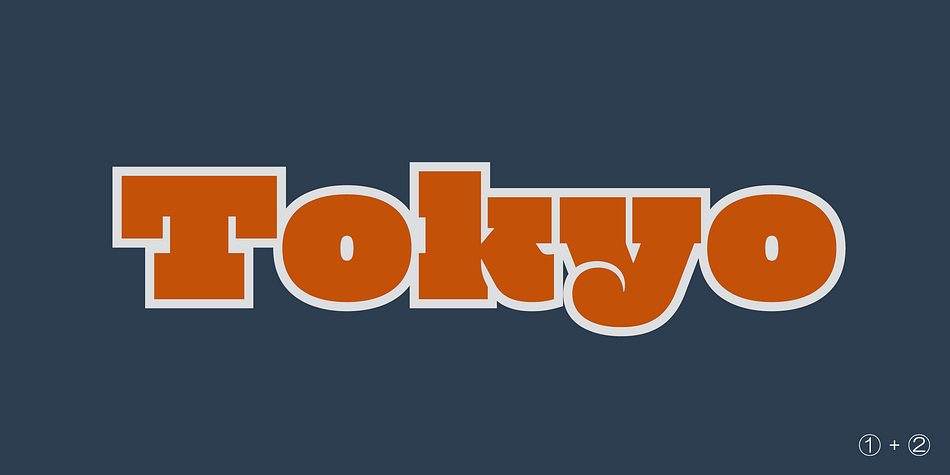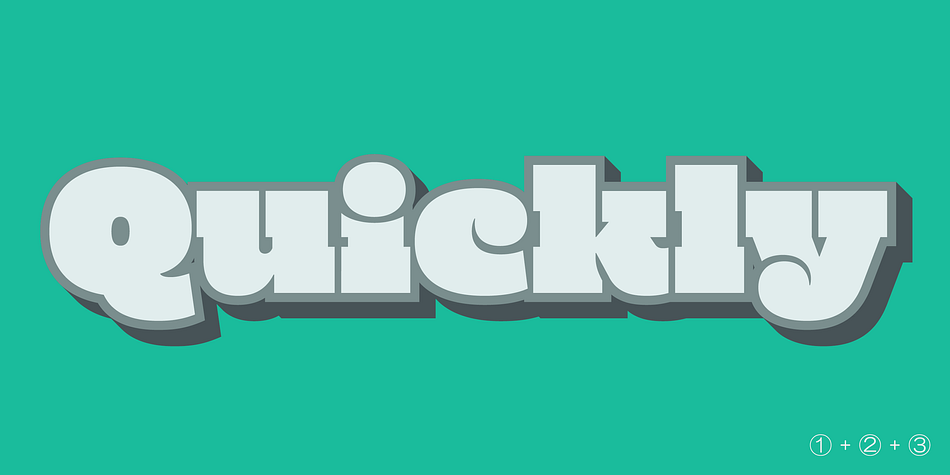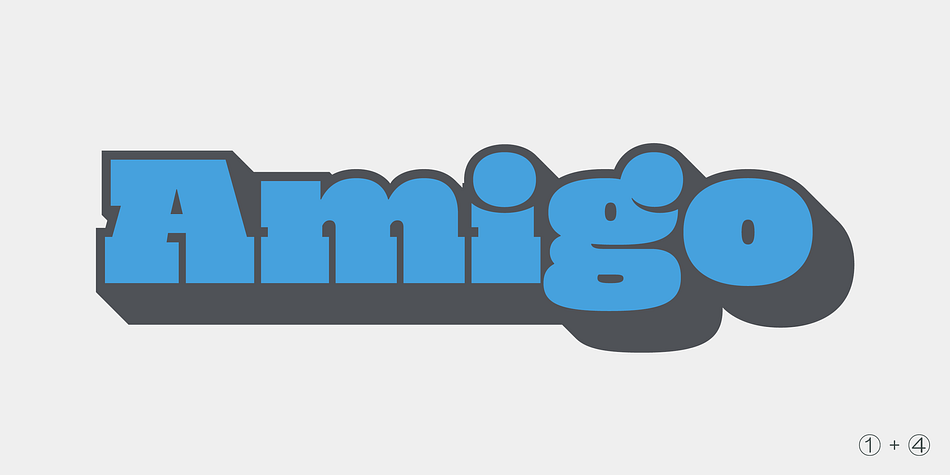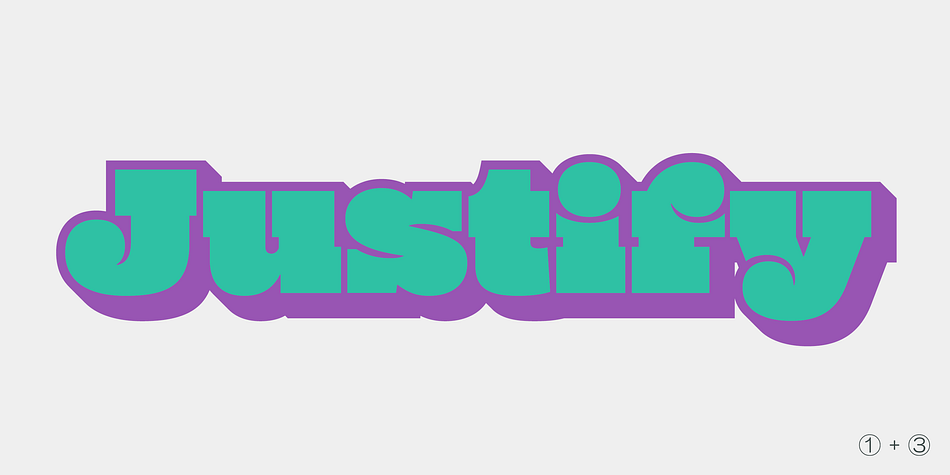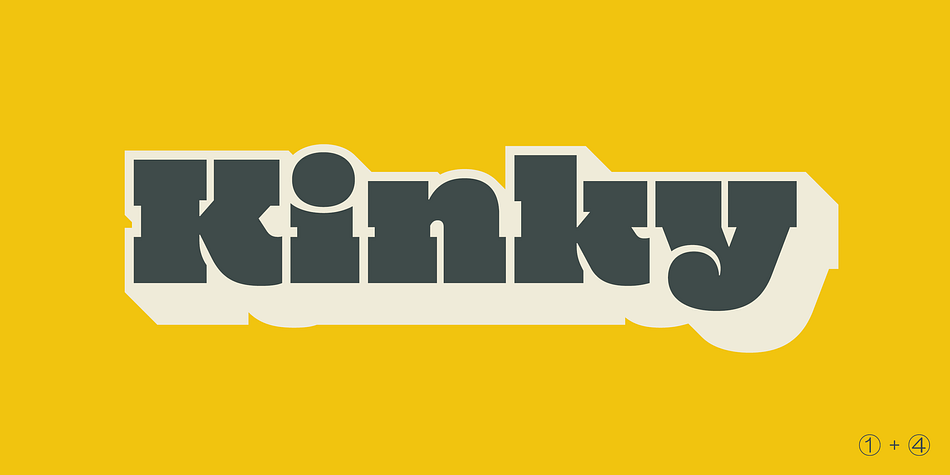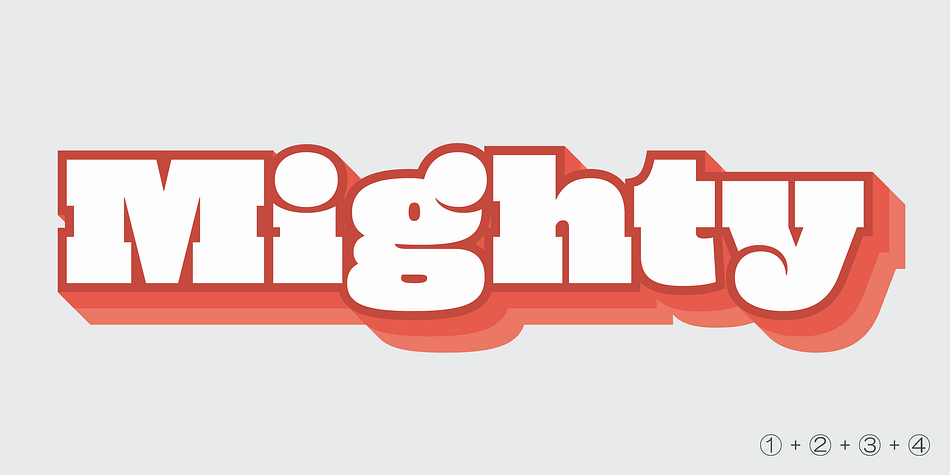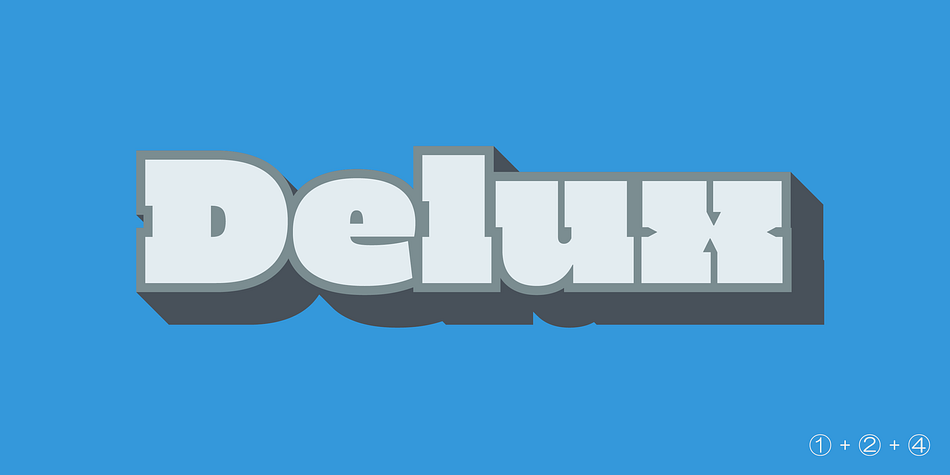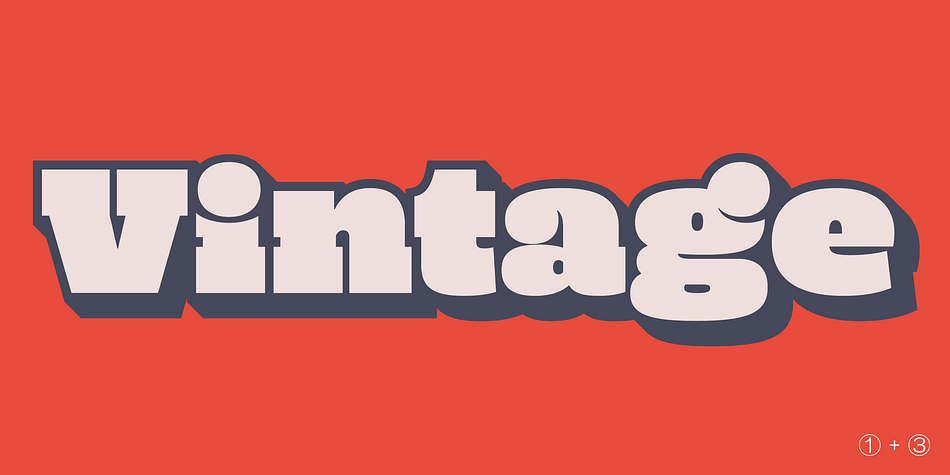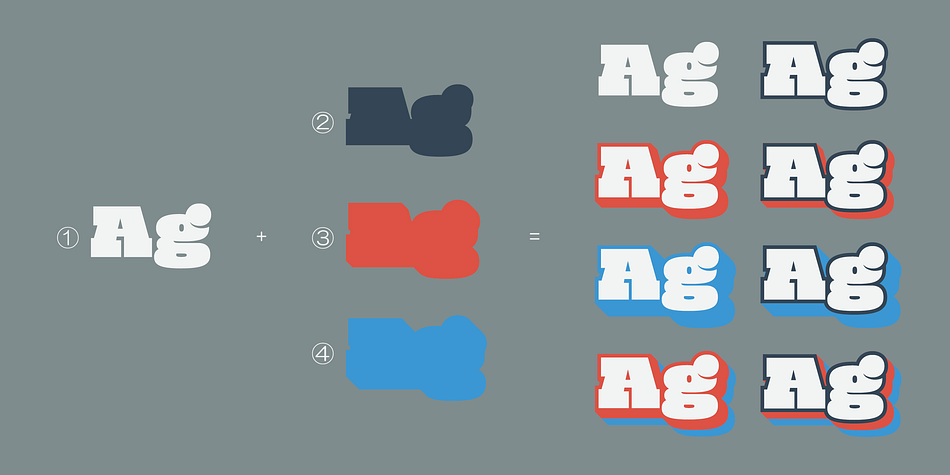
Mighty Slab is a slab serif font family. This typeface has four styles and was published by Dharma Type.
Mighty Slab is a very heavy slab serif font for titling, captions and logo. OpenType Format with 531 glyphs! Extraordinary impact and super big x-height for more visual conspicuousness.
4 Layered color font! Simply stack same text with each styles in the same position. Mighty Slab One can also be used independently.